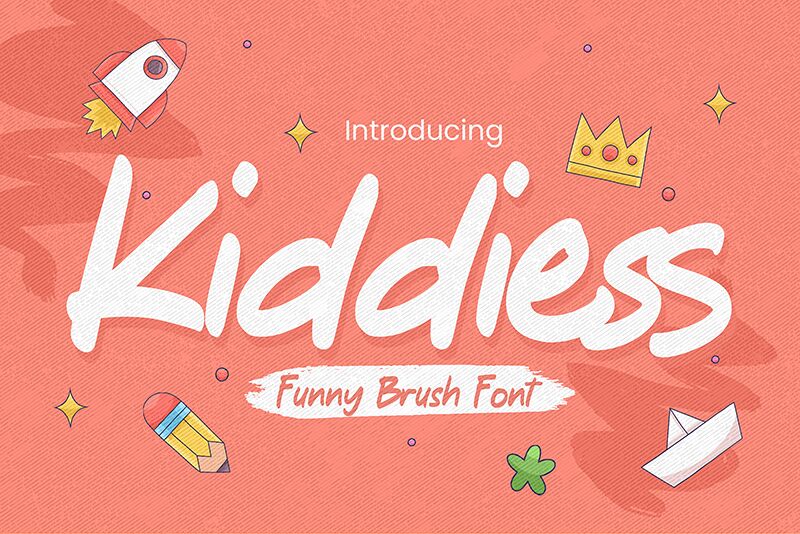
Kiddiess
Kiddiess by Gassstype embodies the carefree spirit of childhood in every whimsical stroke, making it a delightful addition to any creative project. Its funny handwritten style exudes a semi-light charm, capturing the essence of quick, casual penmanship. This font's modern flair and creative movement are perfect for infusing personality into various designs-from the sweetness of food packaging to the playfulness of posters.
Its versatility shines in applications that demand a unique and fun aesthetic. Imagine Kiddiess gracing your labels with an inviting touch or adding a dash of joy to your branding projects. With its natural look, this font excels on greeting cards, websites, photography overlays, and even scrapbooking endeavors.
Kiddiess isn't just another font; it's a gateway to crafting visuals that speak volumes about liveliness and originality. It stands out as an ideal typeface for designers looking to inject warmth and character into their work.